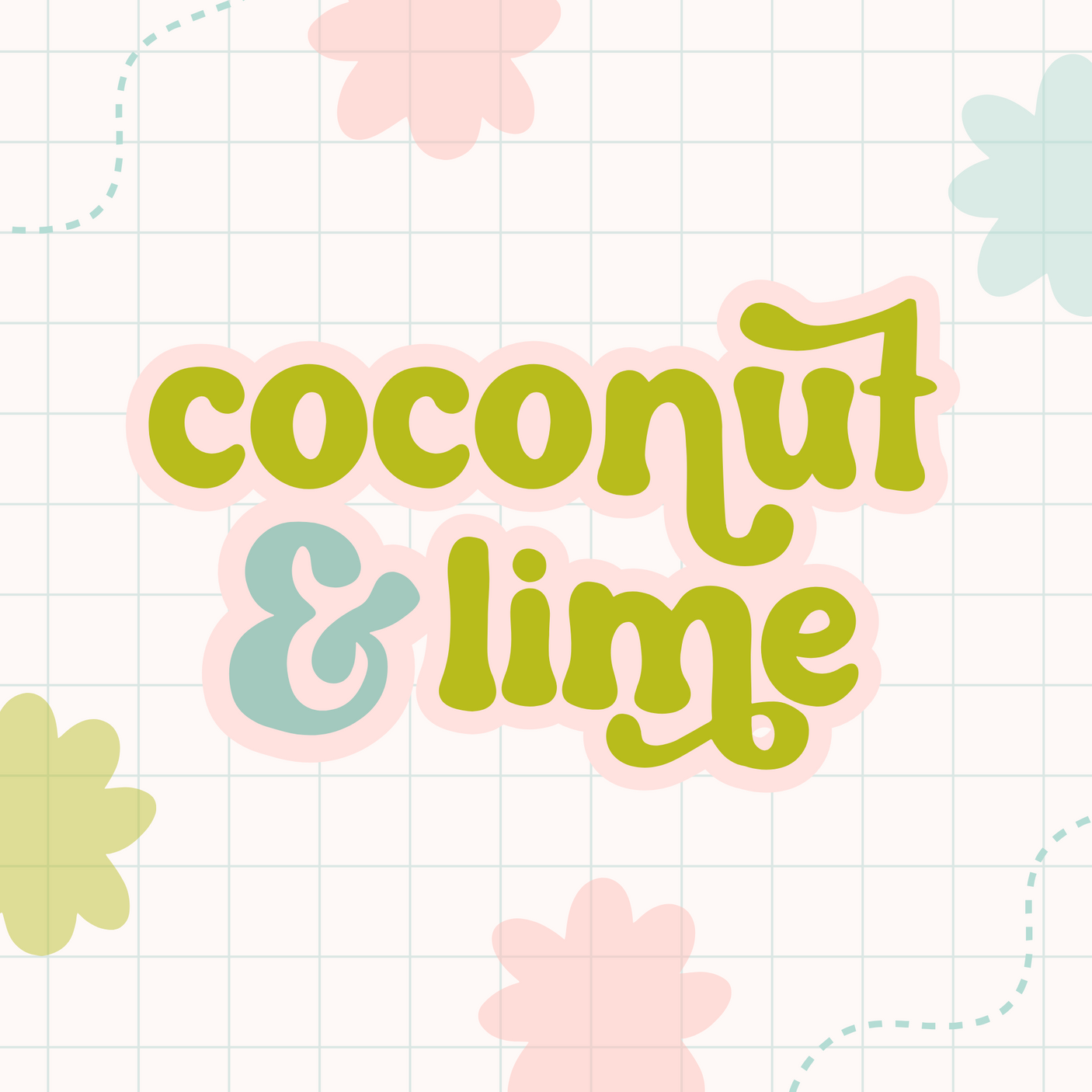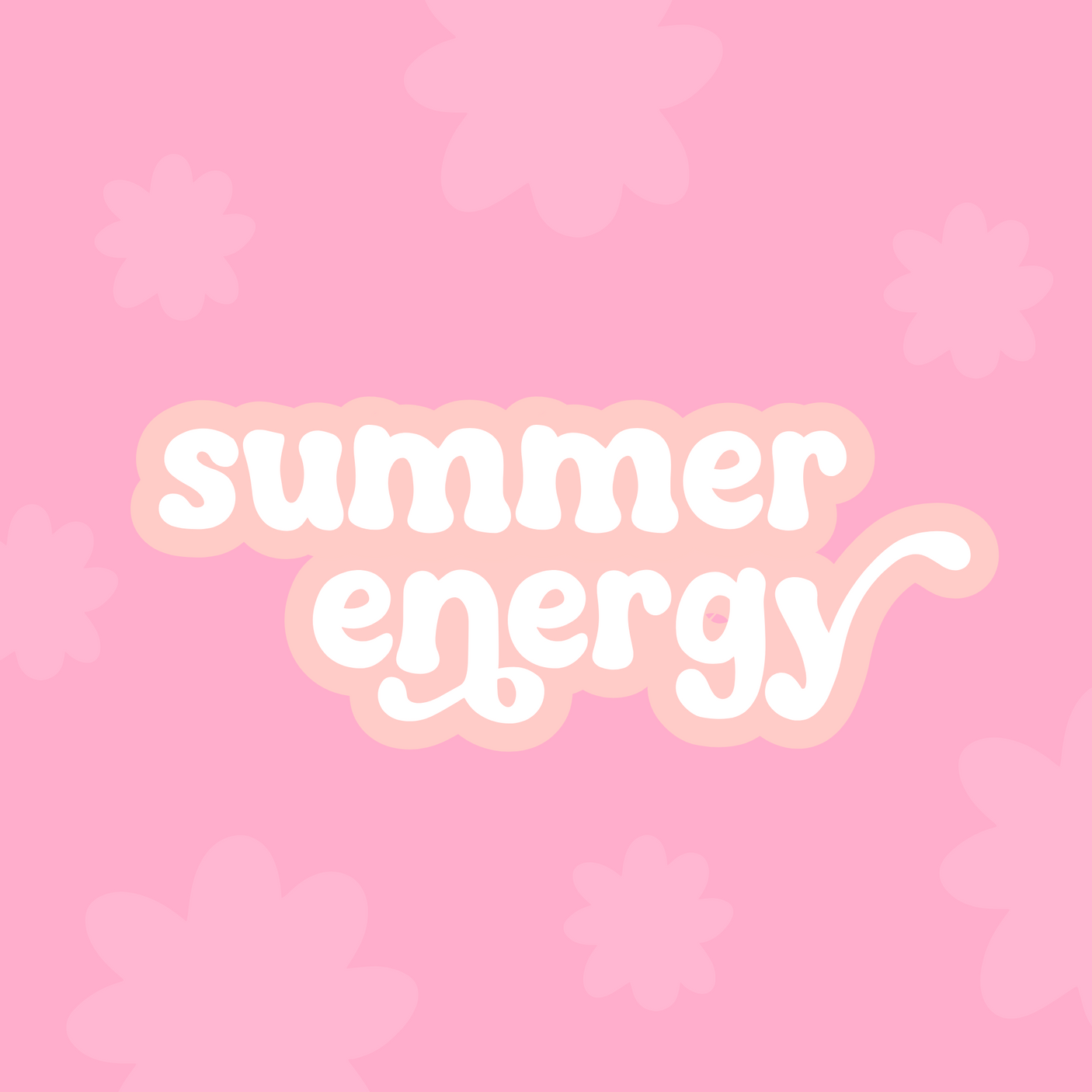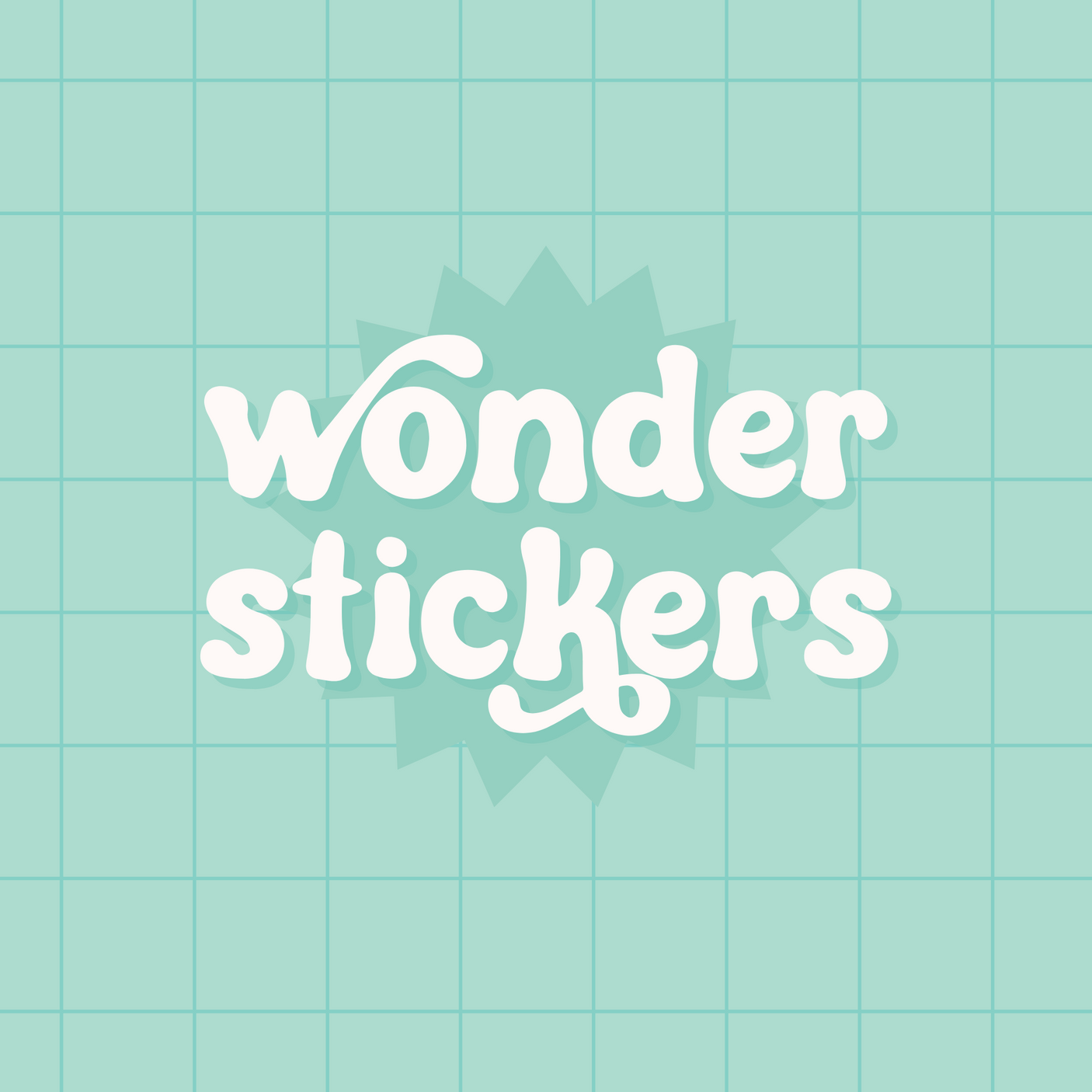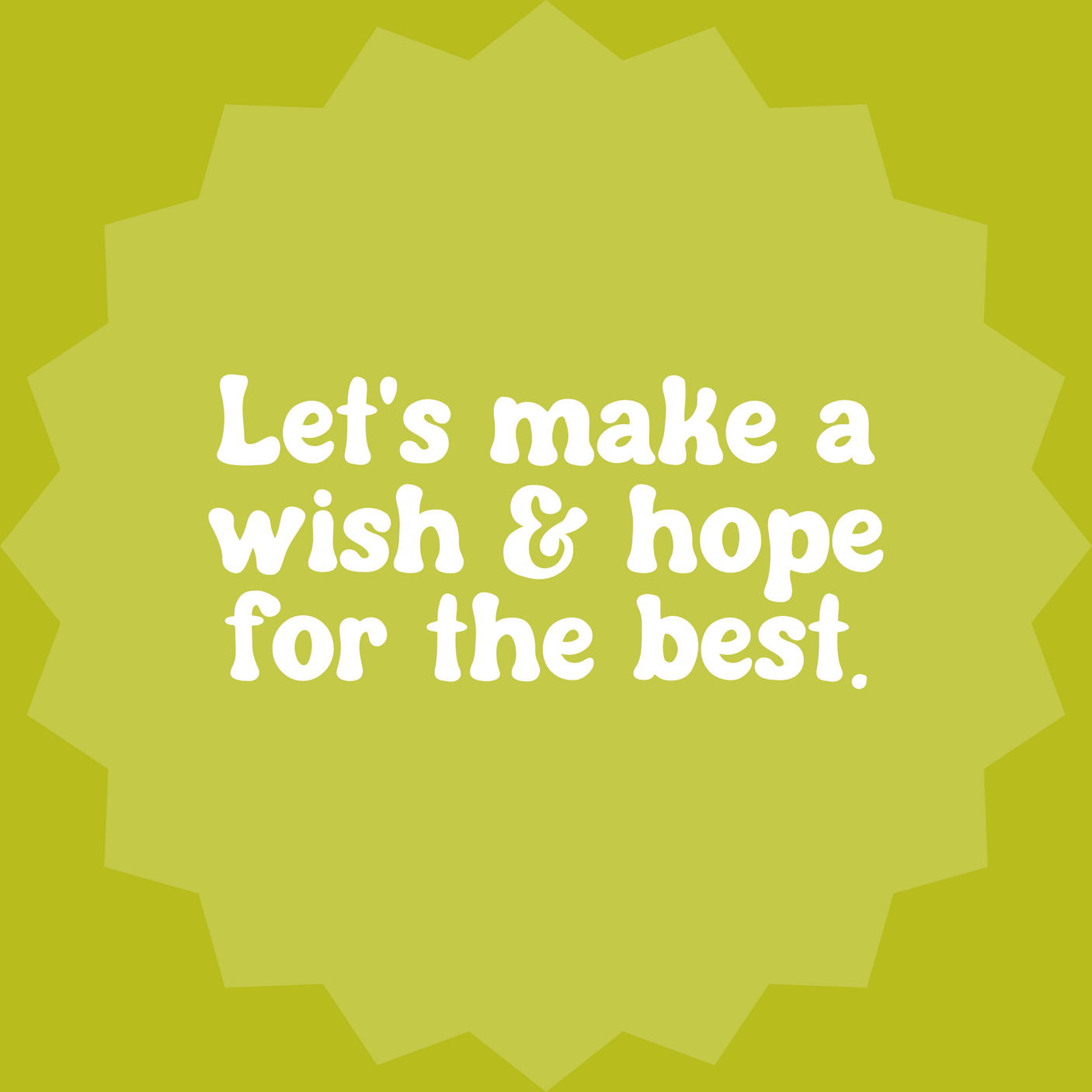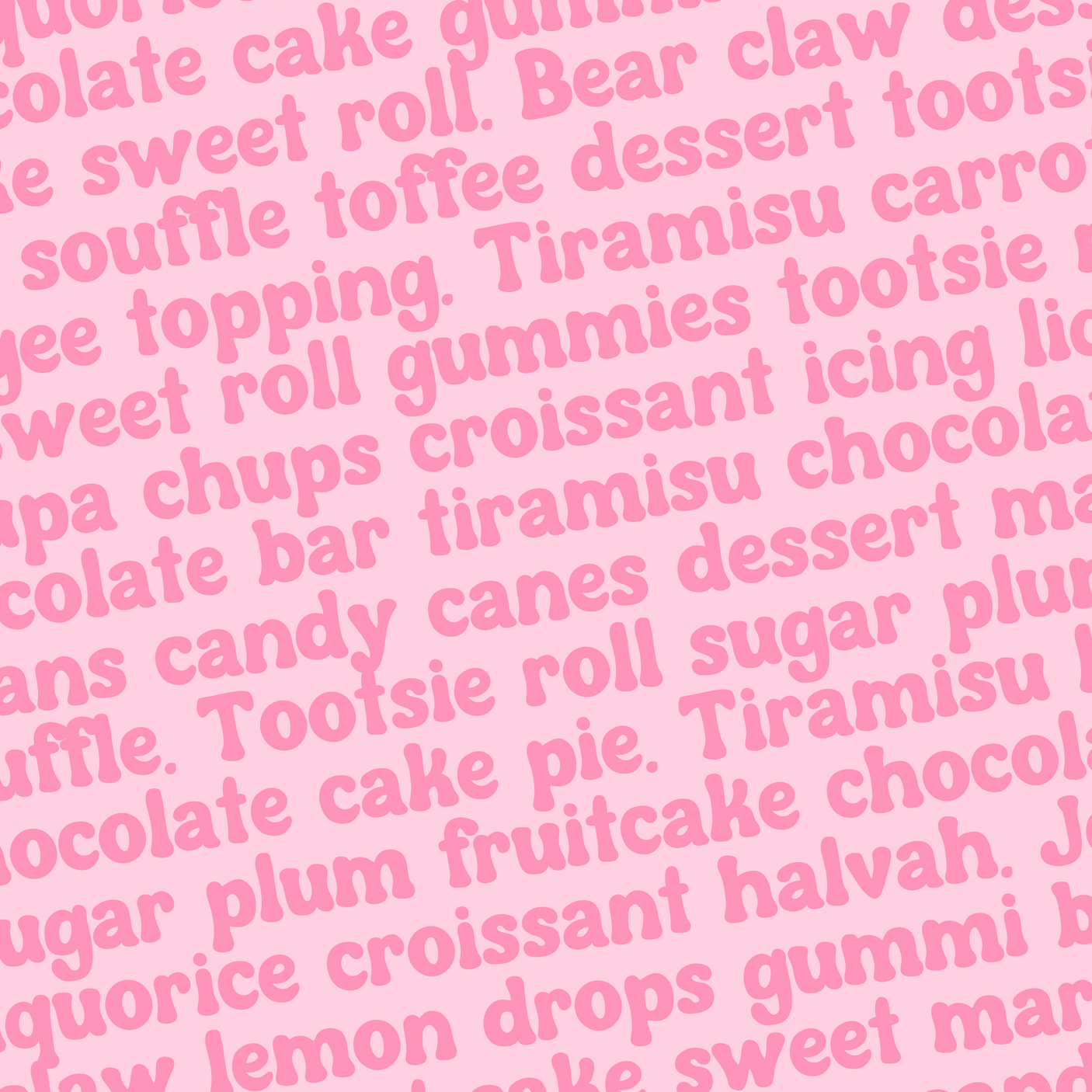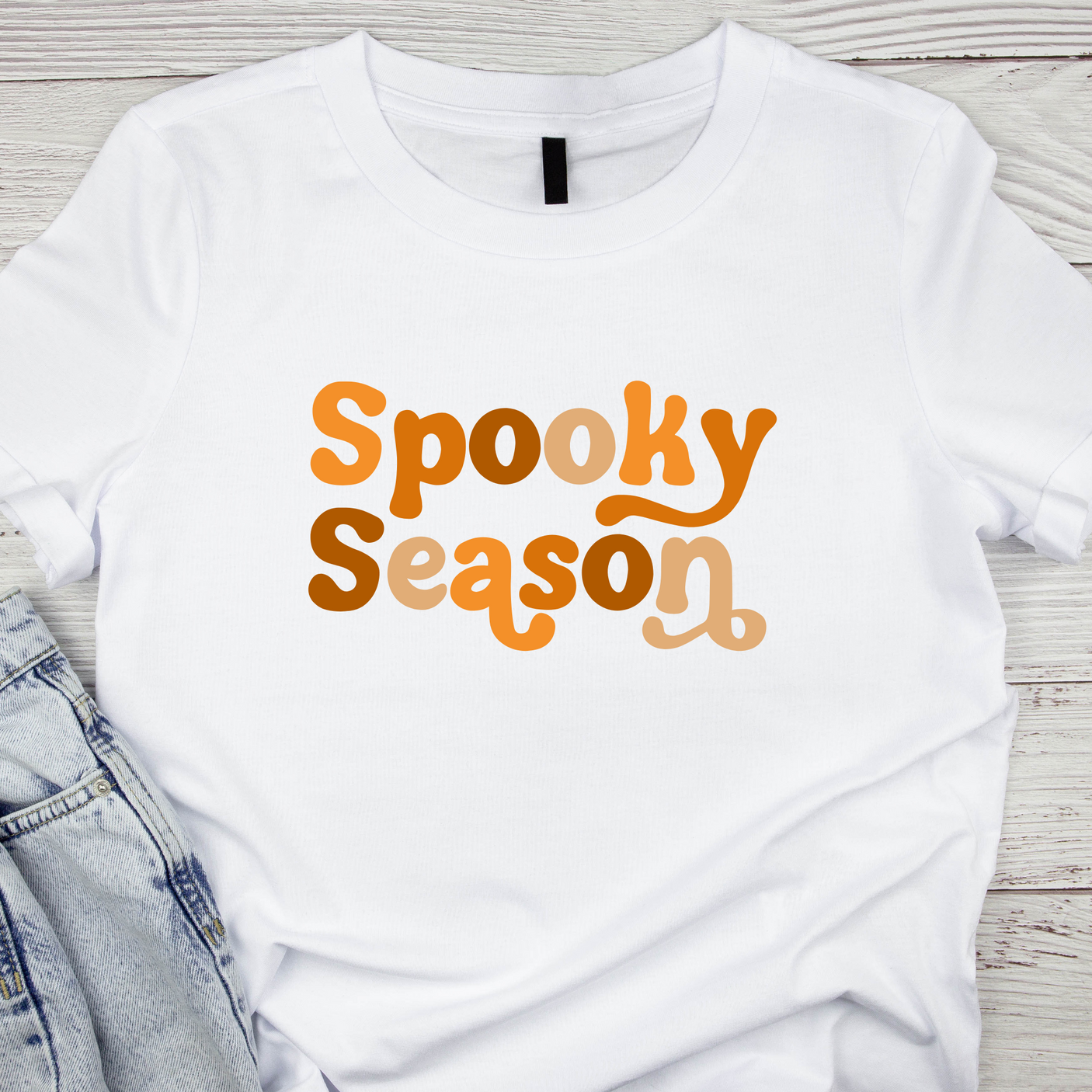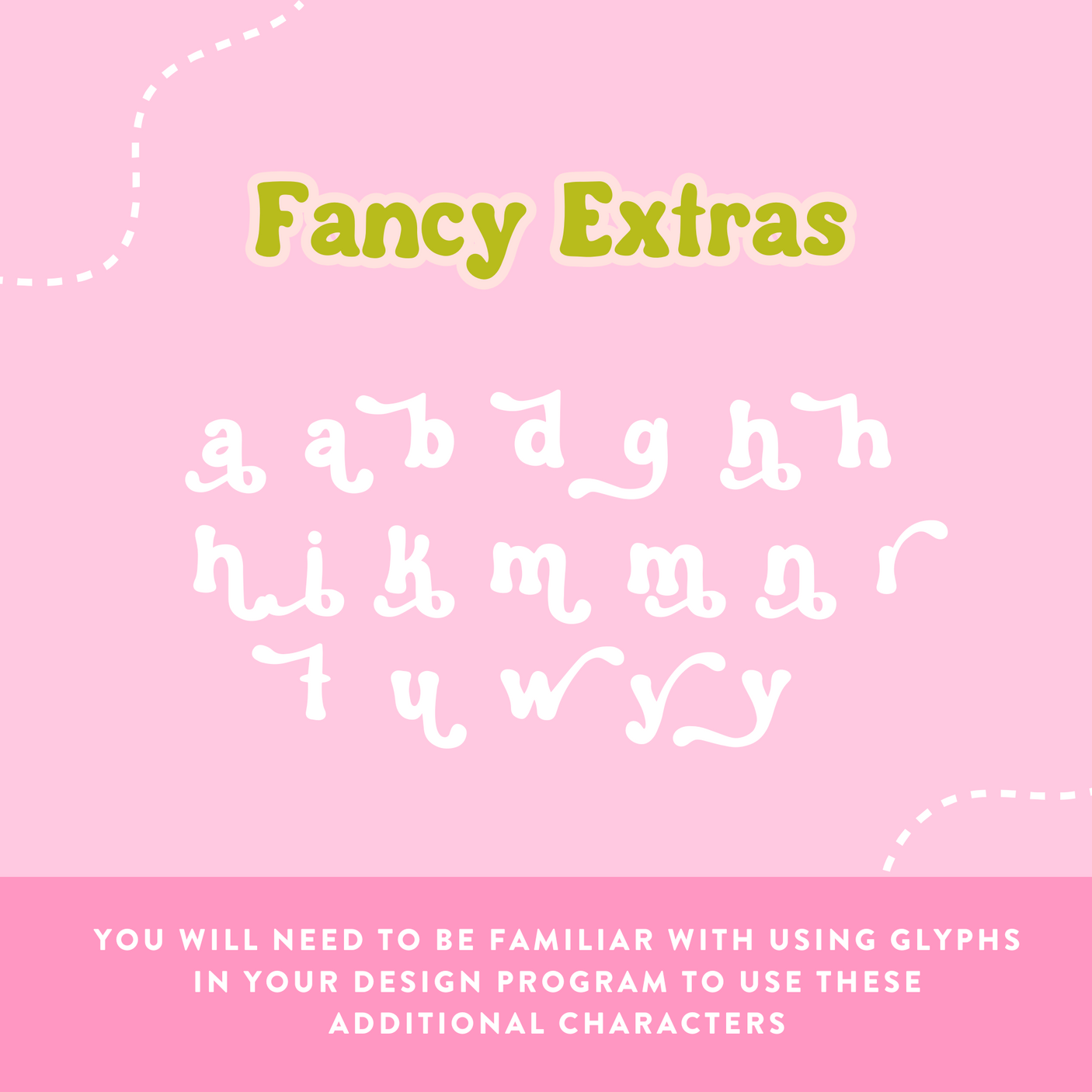
Coconut And Lime Font
Bring a splash of retro vibes and playful charm to your designs with Coconut And Lime font! This groovy display font features stylistic characters with unique tails that add a funky, vintage feel to any project. Perfect for logos, social media graphics, product packaging, posters, and more, Coconut & Lime is your go-to typeface for a bold, standout look.
With its nostalgic yet fresh style, this font is ideal for creative entrepreneurs, designers, and anyone who loves a touch of vintage flair in their work. Add a tropical twist to your designs with Coconut & Lime!